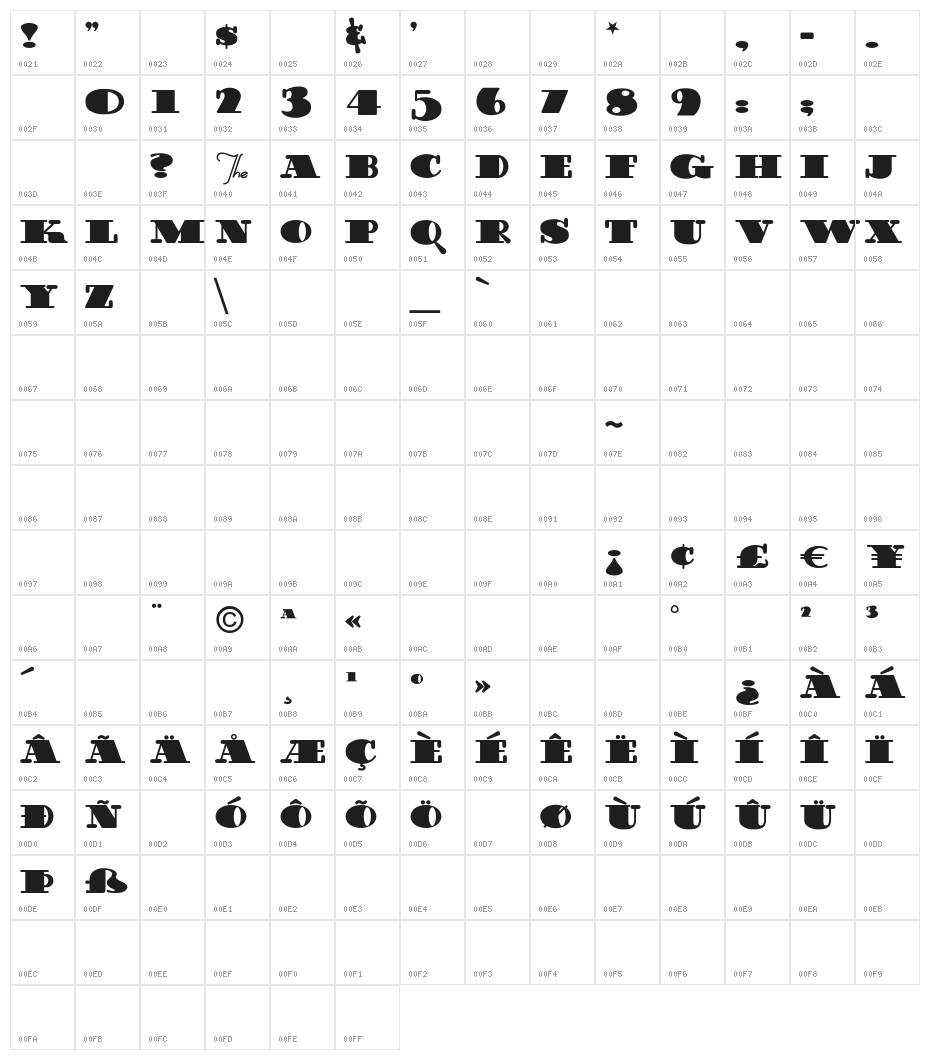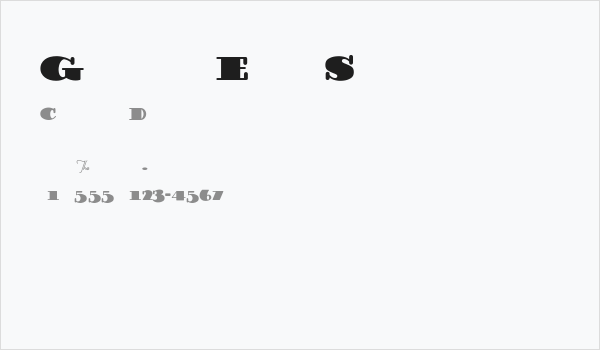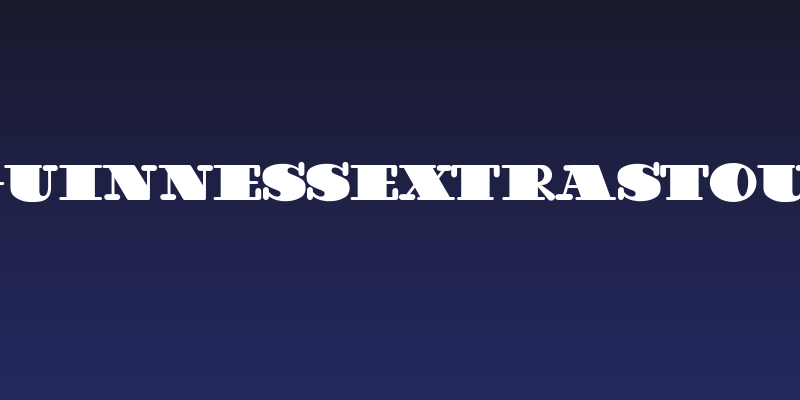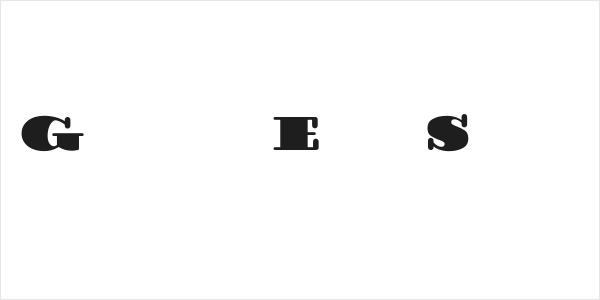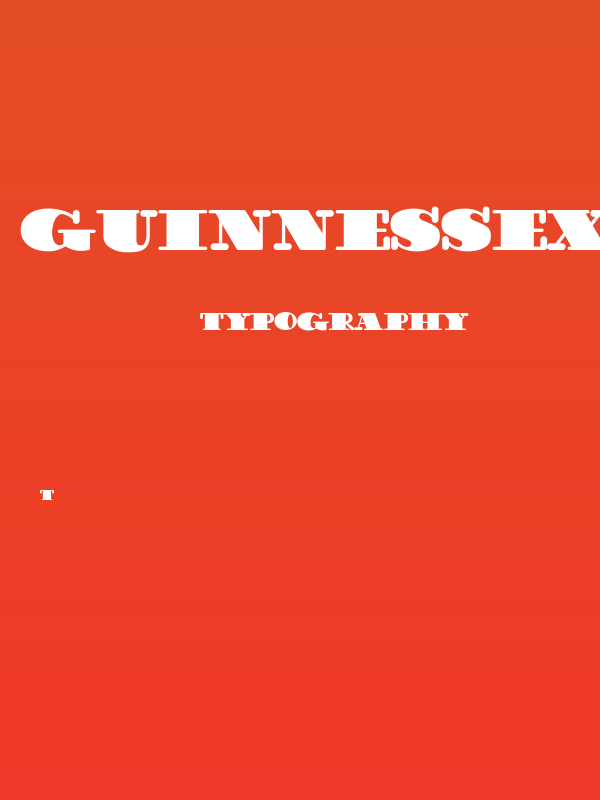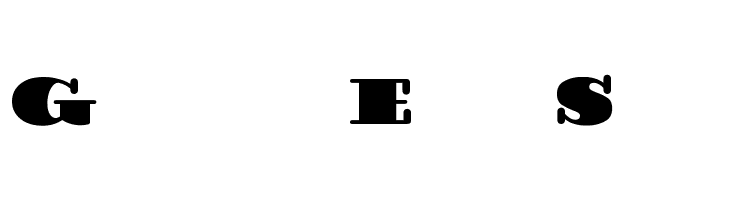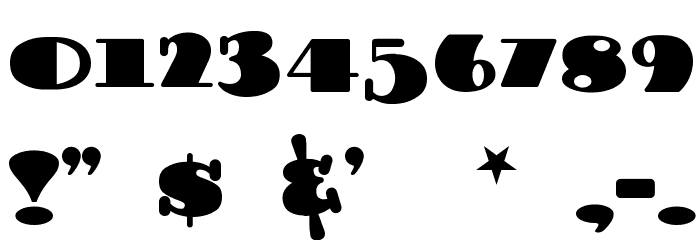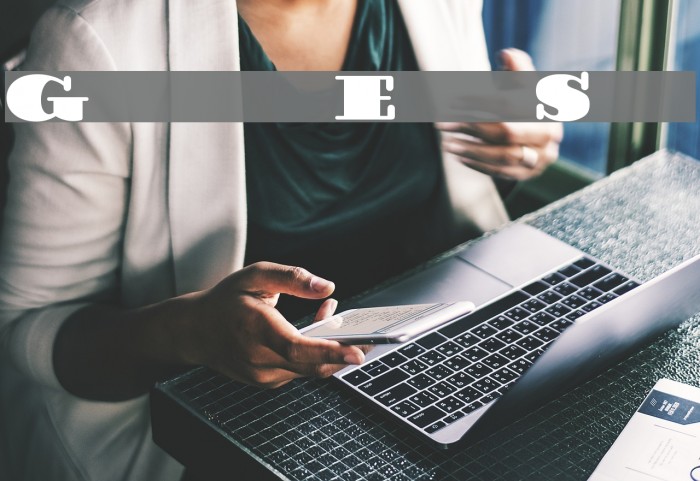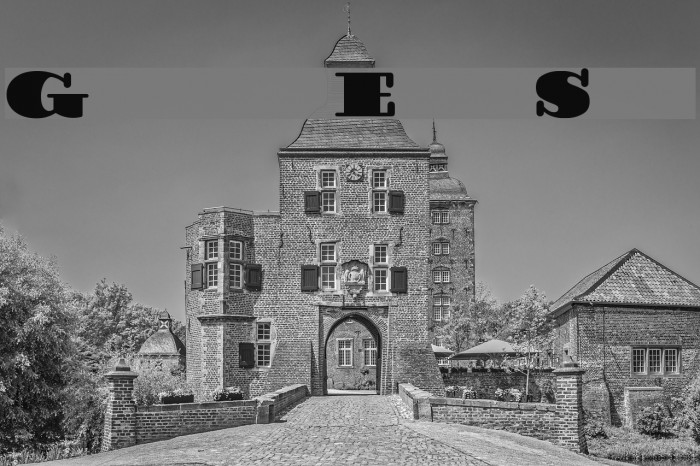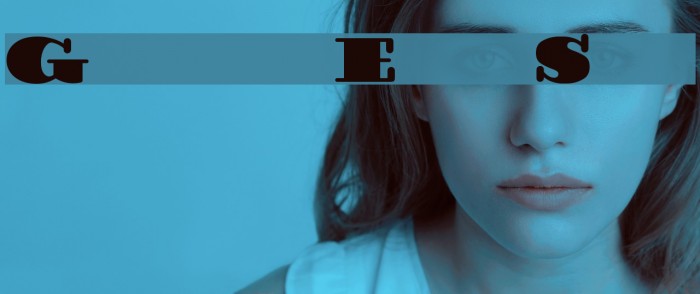
GuinnessExtraStout Font
GuinnessExtraStout Description
This font exhibits a bold and striking appearance, characterized by thick, heavy strokes and a strong presence. The uppercase letters are robust and commanding, with a slight curvature that adds a touch of elegance. The numbers and special characters maintain this bold style, ensuring consistency across all glyphs. The font's design is reminiscent of vintage or retro styles, making it ideal for projects that require a classic yet impactful look. Its high contrast between thick and thin strokes enhances readability while maintaining a decorative flair.
| Overall Style | Vintage |
| Proposed Projects | Ideal for branding, poster design, packaging, and any project requiring a vintage or retro aesthetic. |